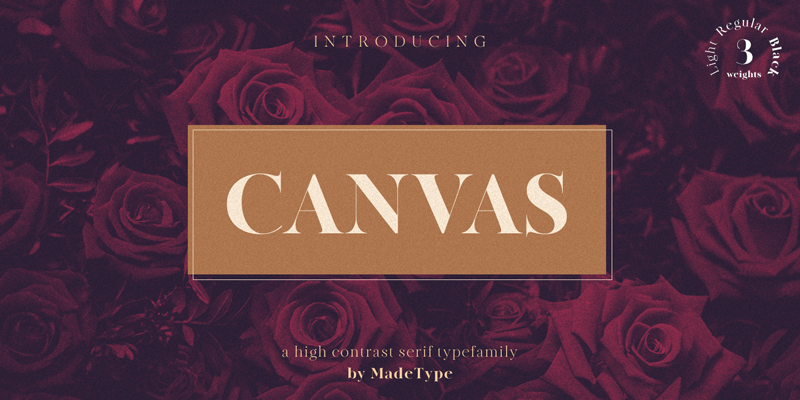
MADE Canvas�is a family of high-contrast serif fonts. Canvas is a modern style "Didoni". The typefamily includes 3 weights - Light, Regular and Black. The hairlines in all of the fonts are very thin. The Canvas�will perfect for many project: fashion, magazines, logo, branding, photography, wedding invitations, quotes, blog header, poster, advertisements, etc. Font is FREE for PERSONAL USE. Contact me mail for commercial use and questions: Madetypeinfo@gmail.com ----- FOR PERSONAL AND COMMERCIAL WORK https://www.fontspring.com/fonts/madetype https://creativemarket.com/MadeType https://thehungryjpeg.com/madetype https://www.youworkforthem.com/designer/1002/madetype/ ----- https://www.behance.net/madetype Email for questions: Madetypeinfo@gmail.com |